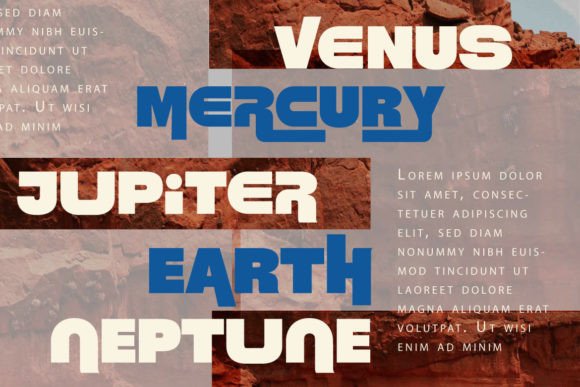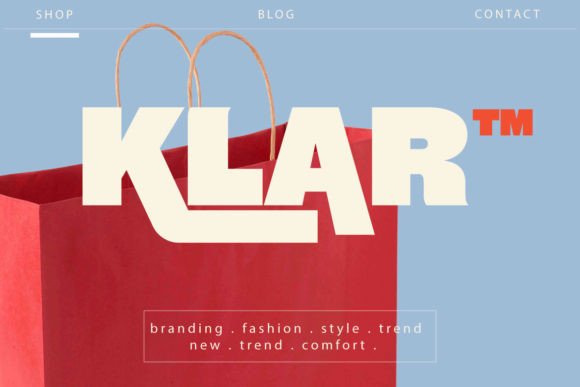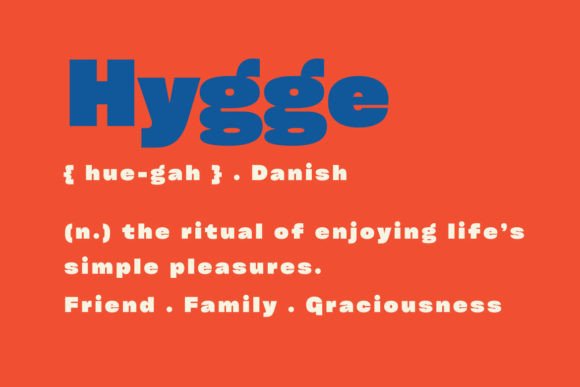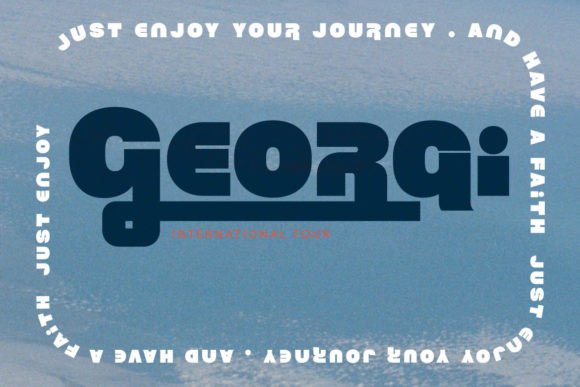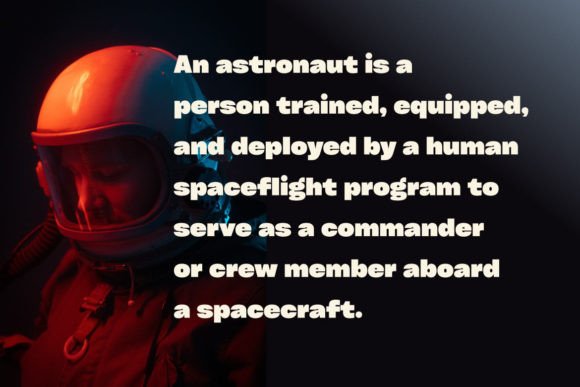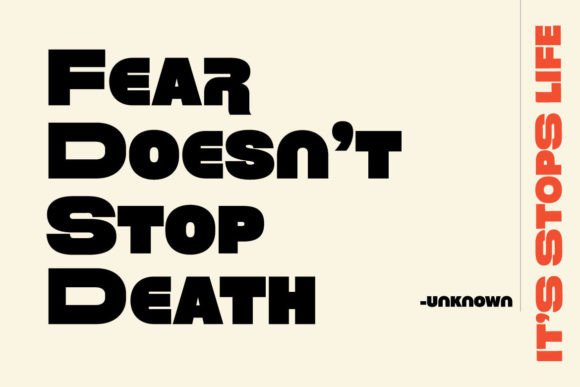
Introduction to Reino Xide Font
Reino Xide is a futuristic font that also comes in a bold style with a very strong stylistic touch related to sci-fi and techno themes.
Use this font for your typography needs, mockups, headings, branding, and many more .
Key Features of Reino Xide Font